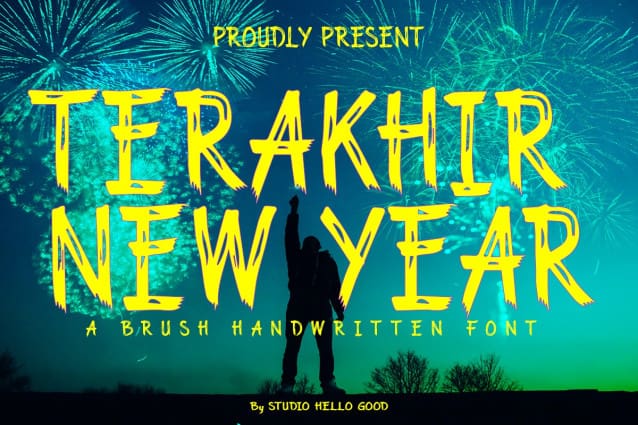
Terakhir New Year Font
Terakhir New Year Font is a friendly, brush stroke font that looks at home in a wide range of designs! This font is a dry brush stroke script, and can give your designs an elegant yet completely modern look.